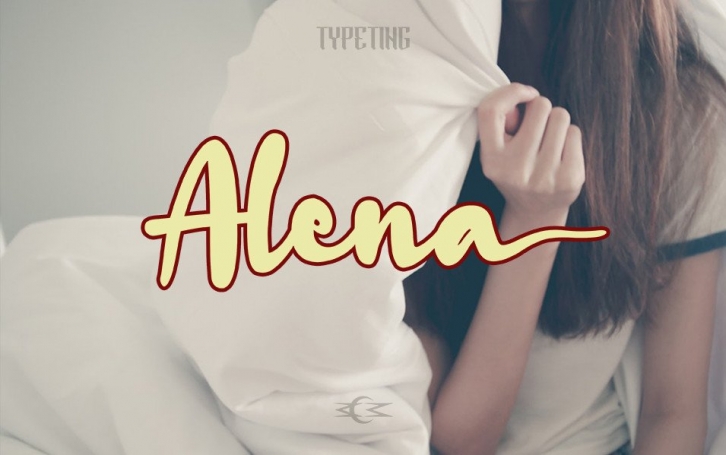
Alena is a cute and casual handwritten font. No matter the topic, this font will be an incredible asset to your fonts collection and will turn any creative idea into a lovely piece of art…